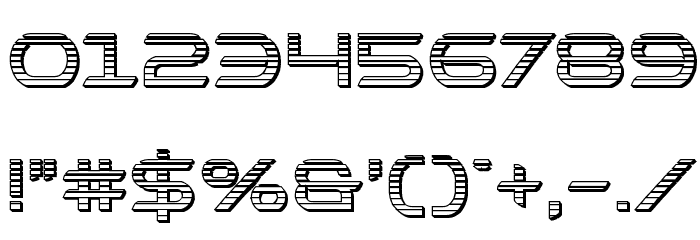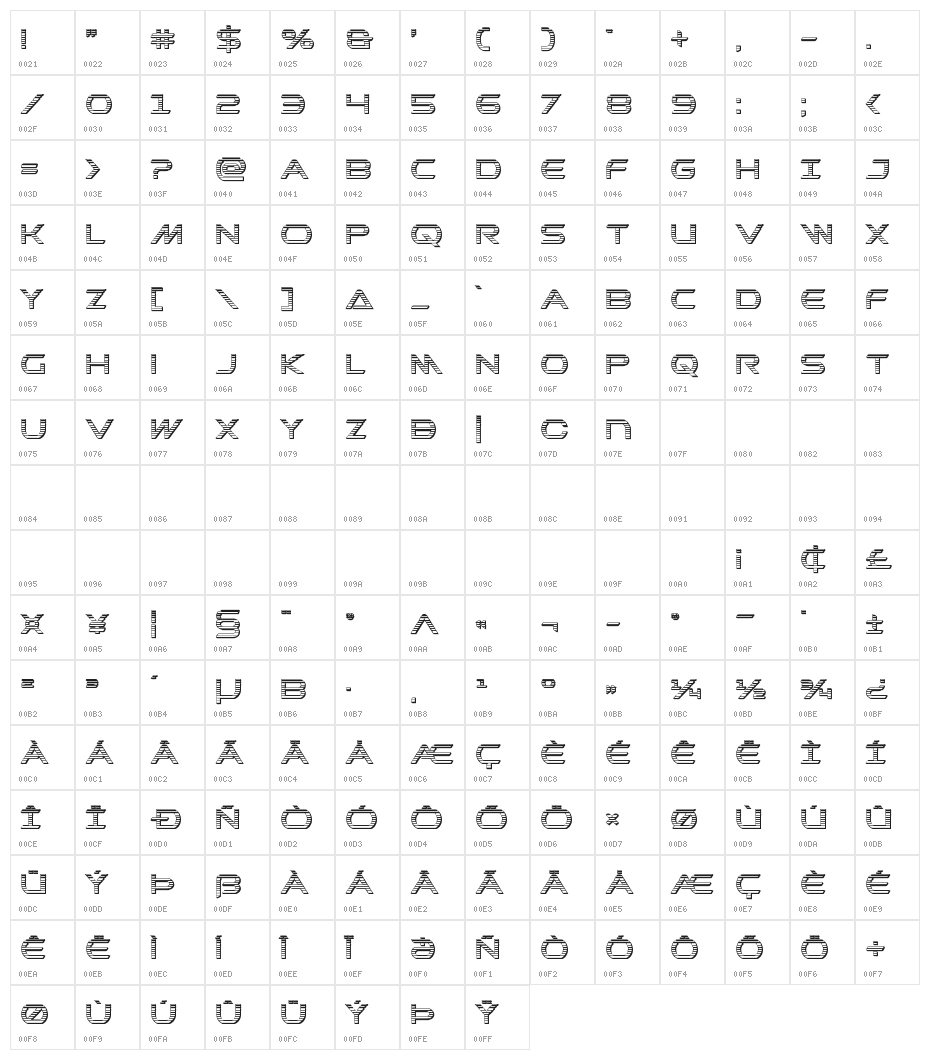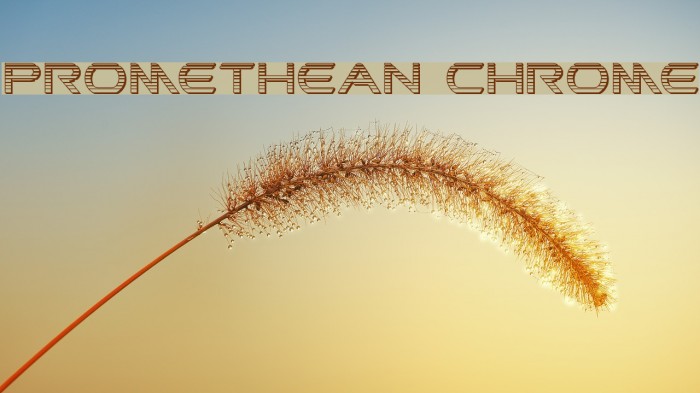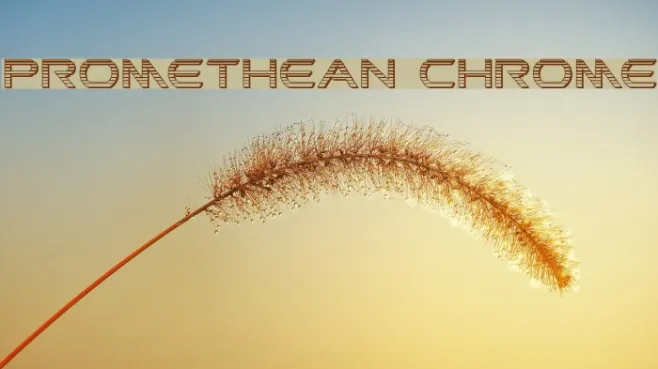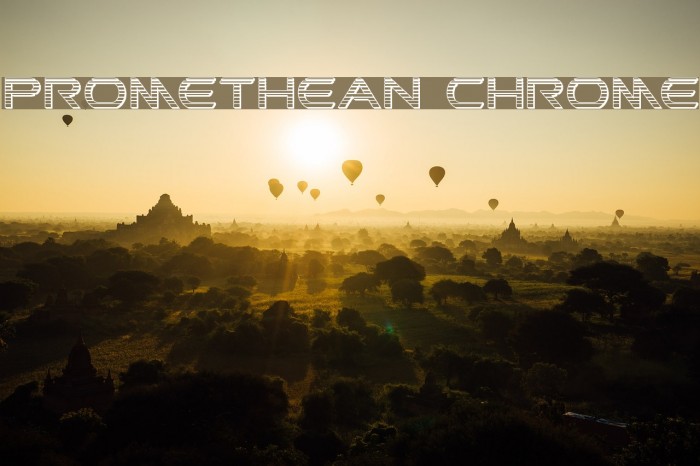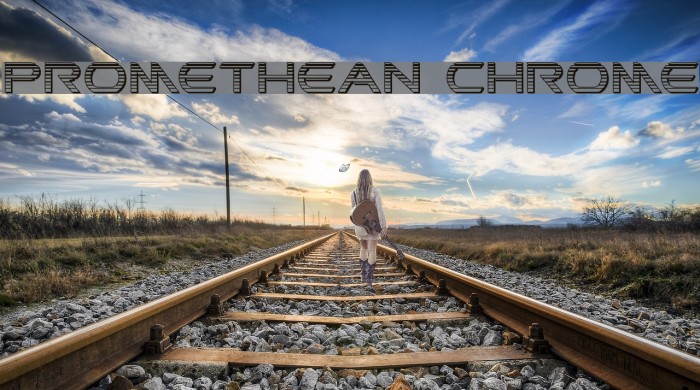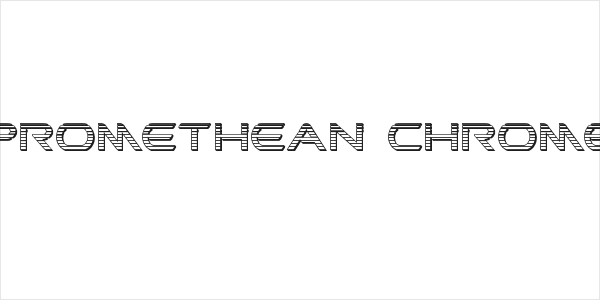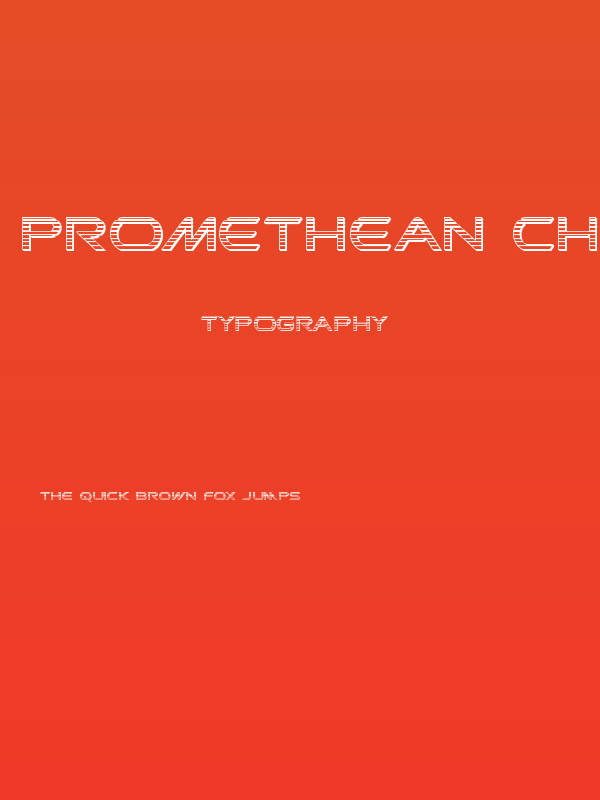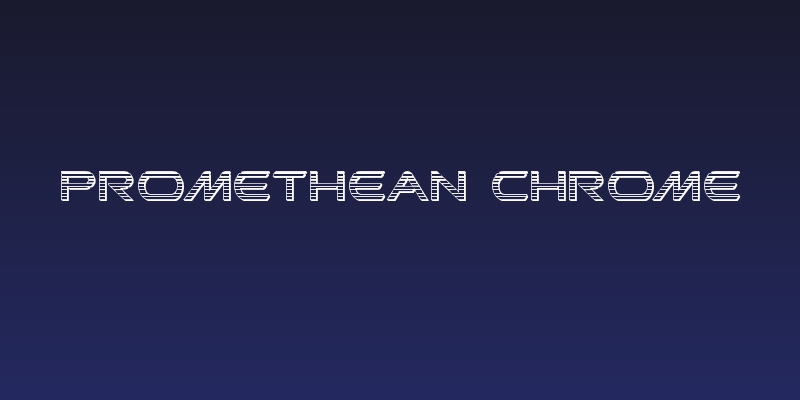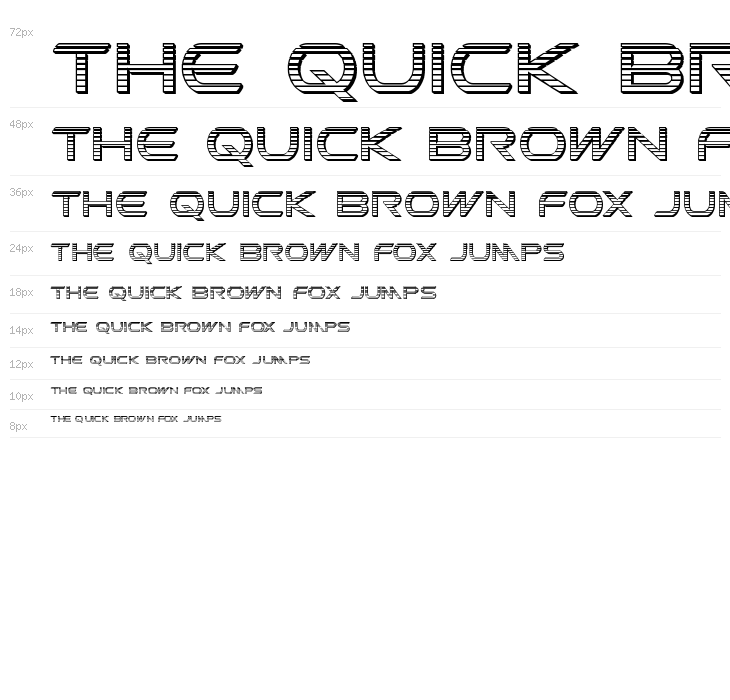
Promethean Chrome Font
Promethean Chrome Description
This font features a futuristic and industrial design, characterized by its geometric shapes and multi-line detailing within each character. The letters are constructed with a series of parallel lines that create a sense of depth and dimension, giving the font a three-dimensional appearance. The overall aesthetic is modern and tech-inspired, making it suitable for projects that require a bold and innovative look. The uppercase and lowercase letters maintain a consistent style, while the numerals and special characters complement the overall design with their structured form.